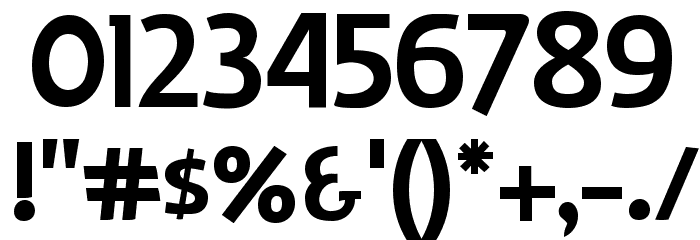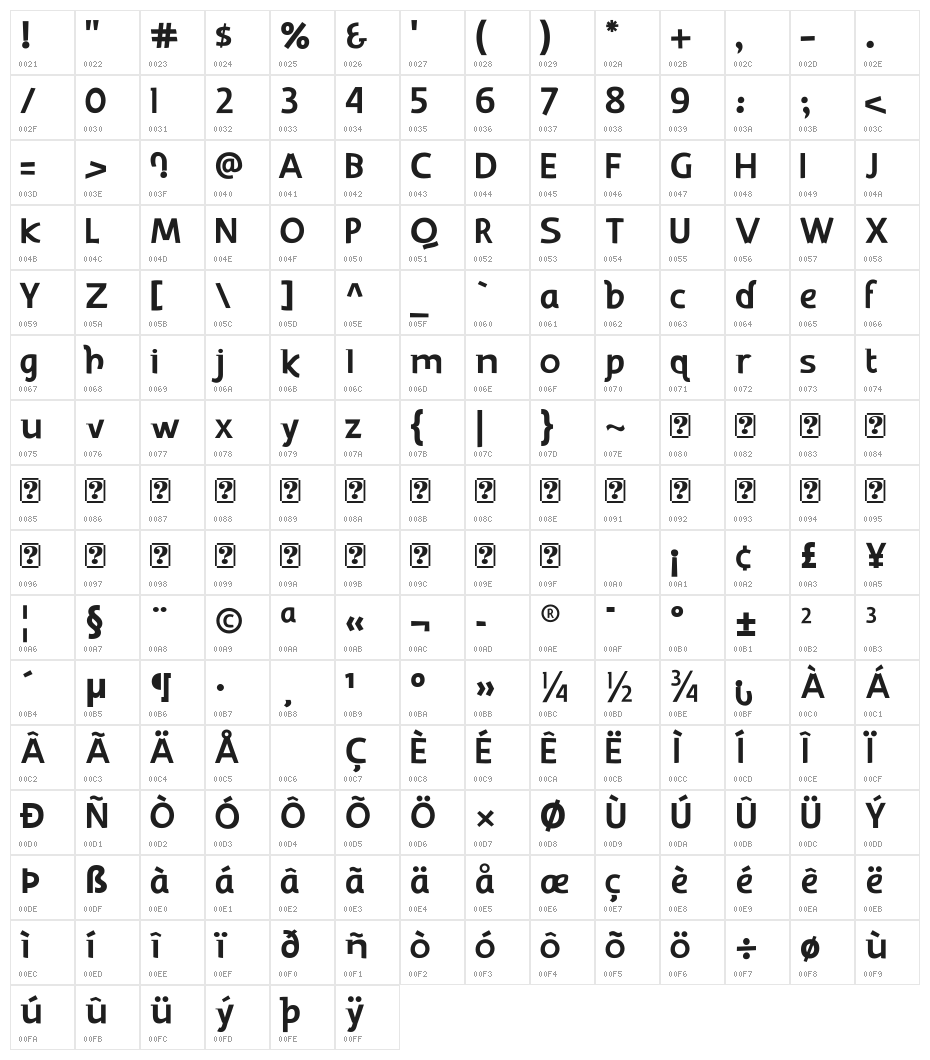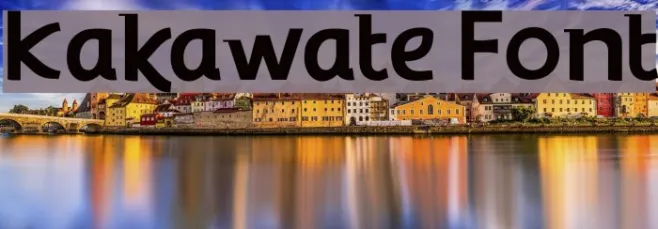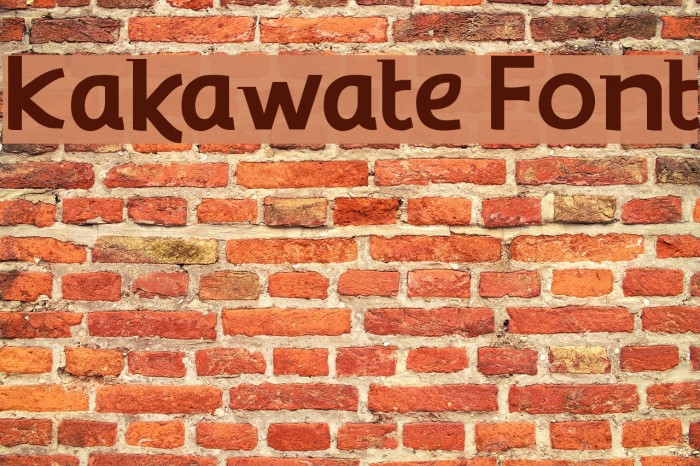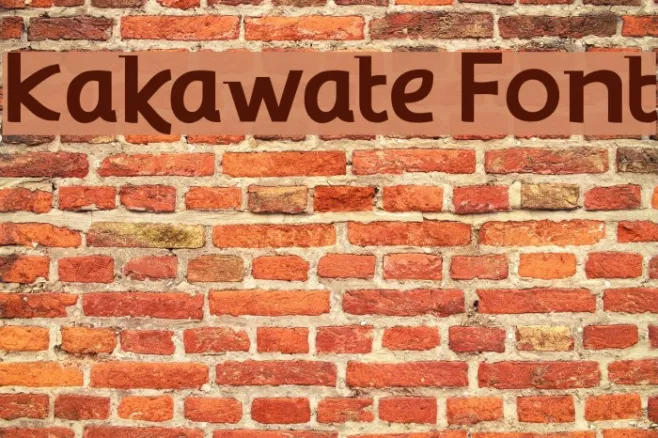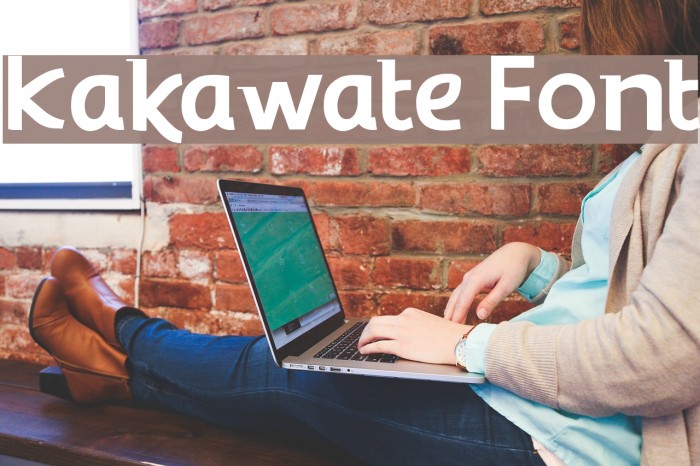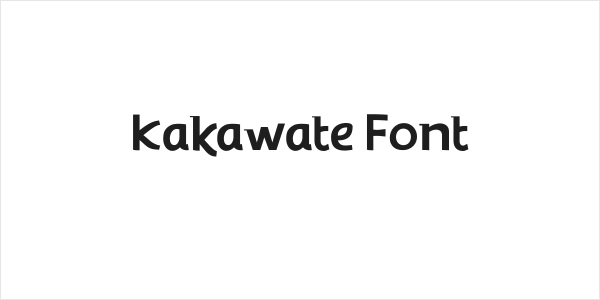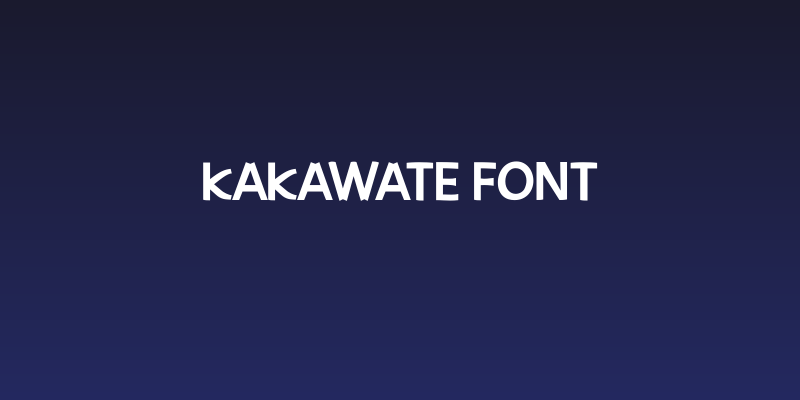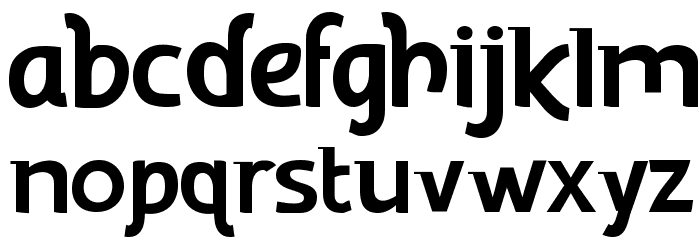
Kakawate Font Font
Kakawate Font Description
This font features a bold and playful design with a slightly whimsical touch. The characters are well-defined with a consistent stroke width, giving it a robust appearance. The uppercase letters have a strong presence, while the lowercase letters maintain a friendly and approachable look. The numerals are clear and easy to read, making them suitable for various applications. Special characters are distinct and integrate seamlessly with the rest of the font. Overall, this font combines modern aesthetics with a hint of fun, making it versatile for both formal and informal uses.
| Proposed Projects | Ideal for branding, advertising, children's books, and playful design projects. |